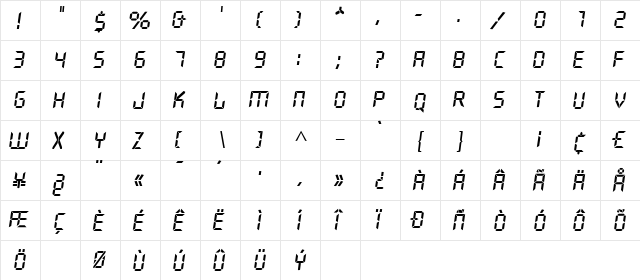
QuiverItal Regular
Design Context for QuiverItal Typeface
QuiverItal takes a measured approach to typography — its balanced proportions and neutral character make it a reliable workhorse for both digital and print work.